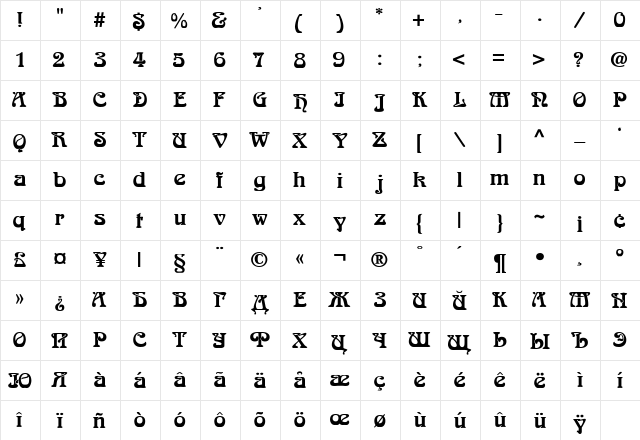
ArabiaR Regular
Design Context for ArabiaR Typeface
ArabiaR is a composed and adaptable typeface that performs quietly and consistently across a wide range of design contexts.